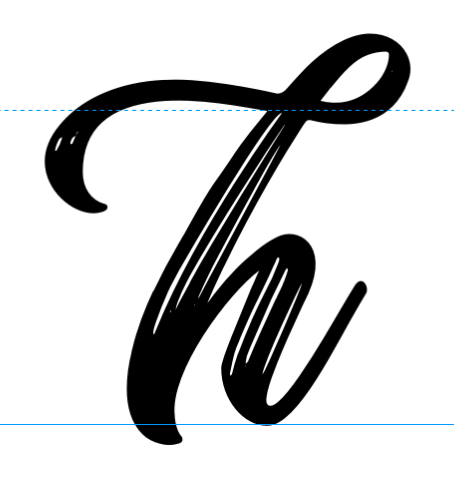
anyone know what font this is? it was converted to outlines years ago, and not one now working in my org knows.
Rustling Trees
This font has a bunch of glyphs and I thought the L was part of that. It appears the L has been altered. But the rest of the is definitely Rustling Trees. ![]()
I think someone took the top of the lower case alternate h and grafted it to the top of the L to better match the top word.